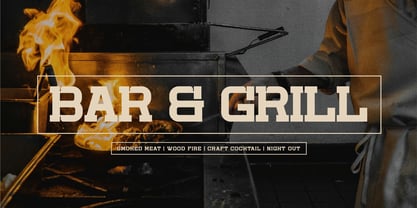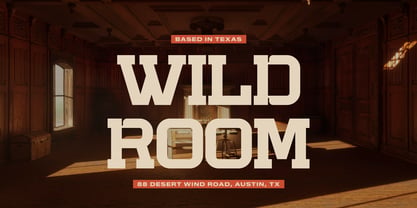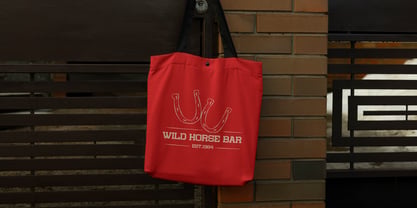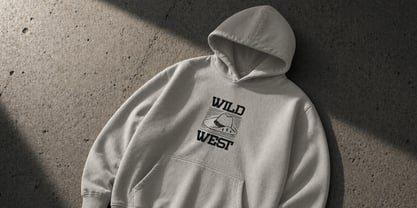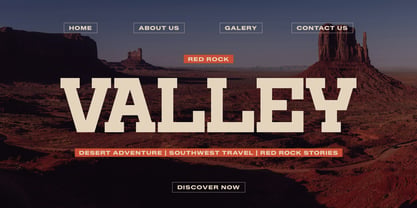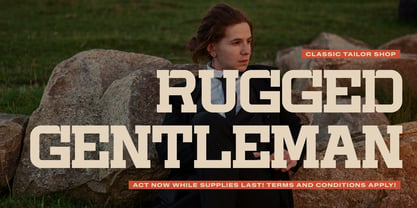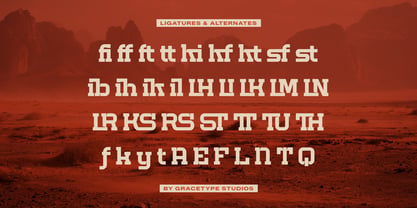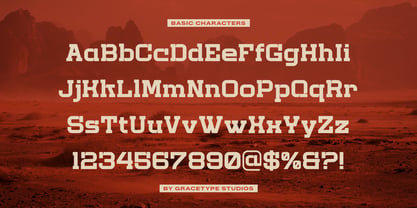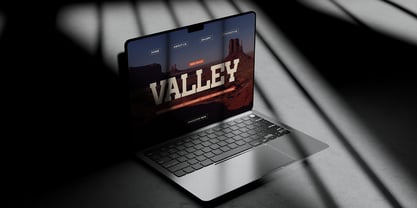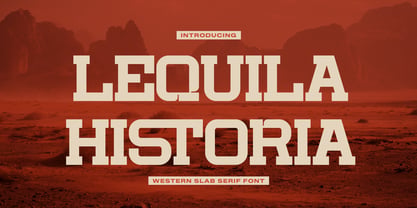
Lequila Historia
Lequila Historia | Western Slab Serif, from Gracetypestudio, suitable for any projects such as: logos, branding projects, homeware designs, product packaging, mugs, quotes, posters, shopping bags, t-shirts, book covers, name card, invitation cards, greeting cards, label, photography, watermark, special events, and all your other lovely projects that need a Slab Serif taste.